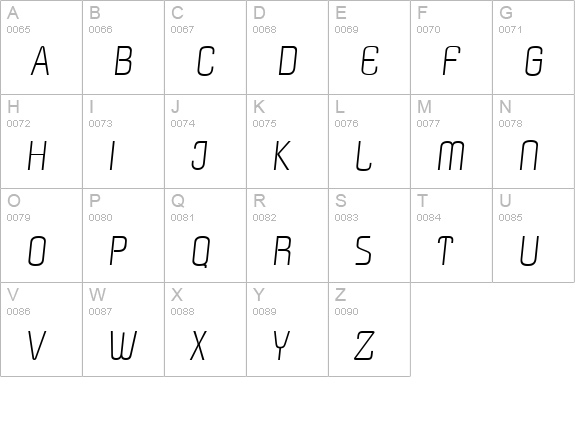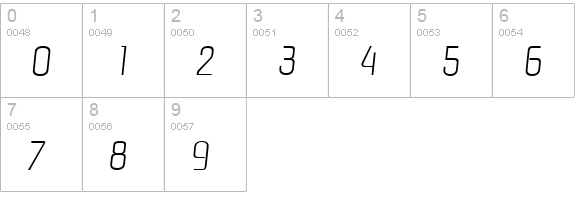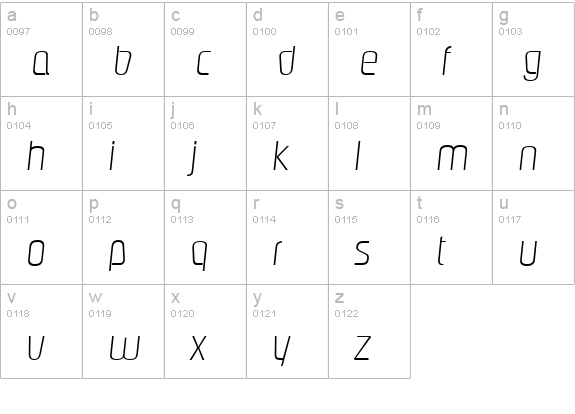
PasadenaSerial-Xlight-Italic Font Details
PasadenaSerial-Xlight-Italic is a distinctive, italic variant in the PasadenaSerial typeface family \xE2\x80\x94 well suited to design and typography projects.
PasadenaSerial-Xlight-Italic is a sleek and modern font that exudes sophistication and elegance. Its delicate italicized design adds a touch of style to any project, making it perfect for use in branding, editorial design, and more. This font's thin strokes and subtle curves create a graceful and refined appearance that commands attention. Best of all, PasadenaSerial-Xlight-Italic is available for free download at FontsMarket.com. Whether you're a professional designer looking to add a unique flair to your work or a casual user in need of a beautiful typeface for personal projects, this font is a versatile and reliable choice. Embrace the beauty of PasadenaSerial-Xlight-Italic and elevate your designs with its timeless charm and effortless sophistication. Download it now and let your creativity shine!